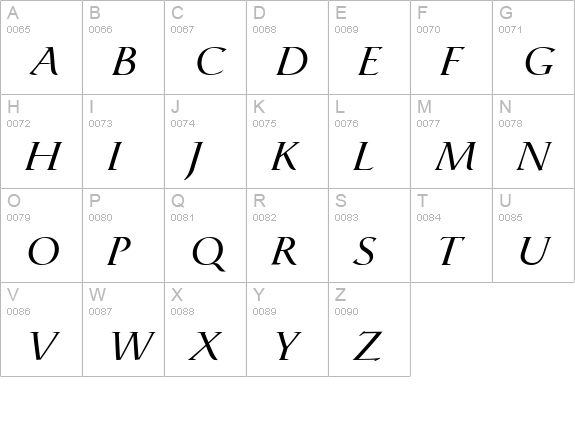
Catull (R) Italic Font Details
Catull (R) Italic is a distinctive, italic variant in the Catull typeface family \xE2\x80\x94 well suited to design and typography projects.
Catull (R) Italic font is a sophisticated and elegant typeface that exudes a sense of refinement and style. Its graceful curves and flowing lines make it perfect for adding a touch of class to any design project. With its sleek and modern appearance, Catull (R) Italic font is ideal for creating invitations, branding materials, and more. Best of all, Catull (R) Italic font is free to download at FontsMarket.com. This means you can access this stunning font without any cost, making it a valuable addition to your font collection. Don't miss out on the opportunity to enhance your projects with the beauty and versatility of Catull (R) Italic font - download it today and start creating stunning designs!